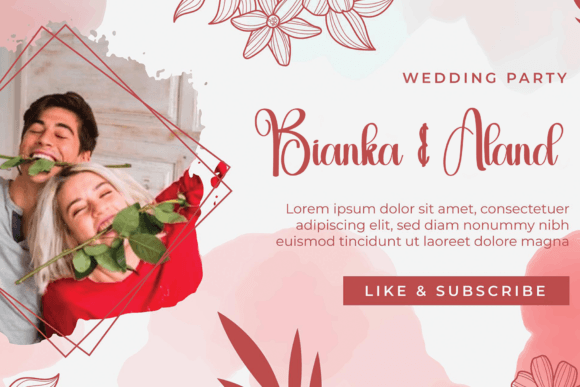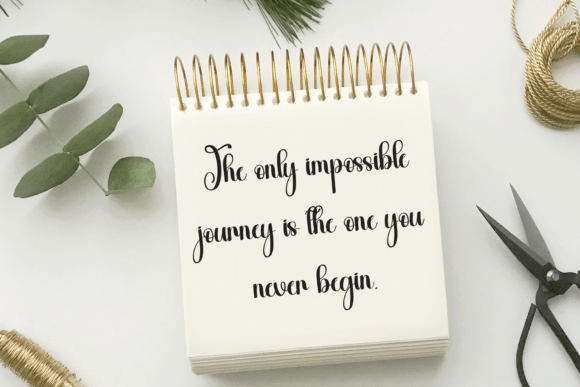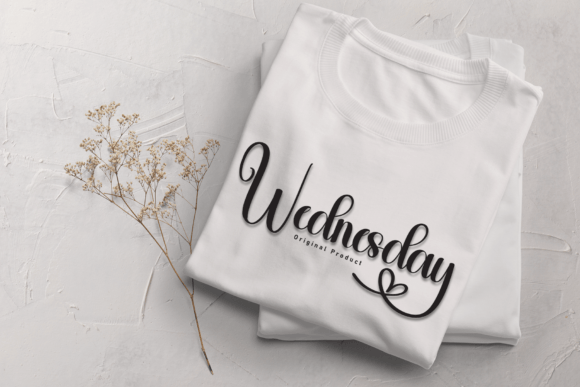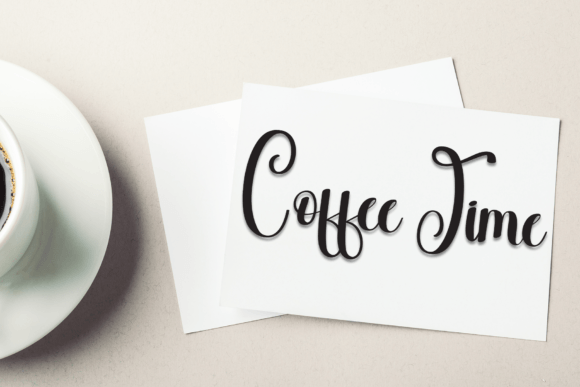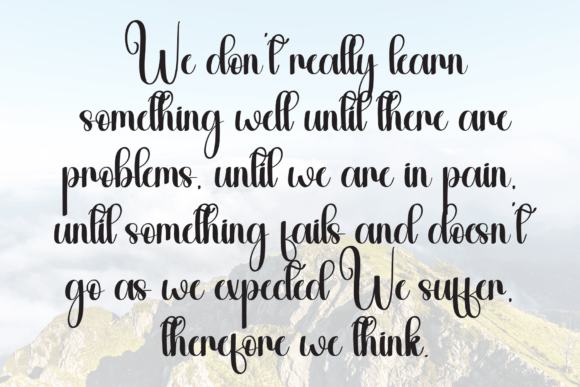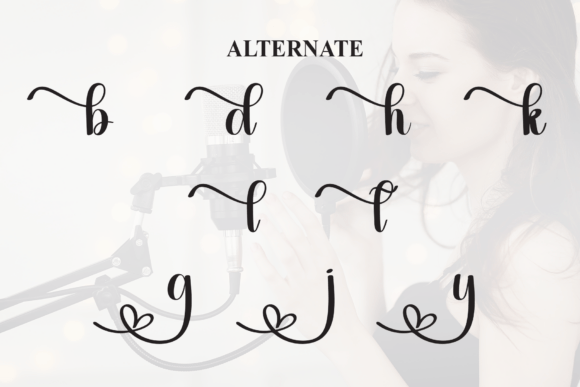
Introducing Caroling Font: The Playful and Personable Handwritten Display Font
Have you ever been working on a design project, and suddenly, you’re struck by a creative roadblock? You’re not alone! I recall a particularly frustrating moment when I was designing a wedding invitation for a client. I had the perfect design concept, but I just couldn’t find the right font to bring it all together. That’s when I stumbled upon Caroling Font, and let me tell you, it was love at first sight! 💕
Caroling Font is a playful and personable handwritten display font that encapsulates warmth and charm with each curve and line. This candidly adorable font is ideal for personalizing wedding invitations, customizing cards, or sprinkling a joyful essence on any design that could benefit from an infusion of entertainment and radiance.
An Honest Review of Caroling Font
- ✨ The whimsical and playful feel that adds a touch of personality to any design
- ✅ The font’s versatility – it works beautifully for both digital and print projects
- 💫 The unique character set, including stylistic alternates and glyphs, that allows for endless creative possibilities
- 📚 The font’s readability, even at smaller sizes, making it perfect for body text or captions
While Caroling Font is an amazing addition to any design project, there are a few things to keep in mind:
- ⚠️ The font may not work as well for very formal or corporate designs, as it’s inherently playful and whimsical
- 🤔 Some characters, like the uppercase letters, can be a bit quirky and may require manual kerning for optimal results
The Designer Inspiration Behind Caroling Font
Caroling Font was designed with the intention of capturing the warmth and charm of handwritten letters. The designer, inspired by traditional calligraphy and handwriting, aimed to create a font that would bring a sense of personality and whimsy to any design project. With its unique character set and playful feel, Caroling Font is sure to delight designers and crafters alike.
Q: Is Caroling Font suitable for body text?
A: While Caroling Font is primarily designed as a display font, it’s surprisingly readable, even at smaller sizes. However, for very long pieces of text, you may want to consider a more traditional body font.